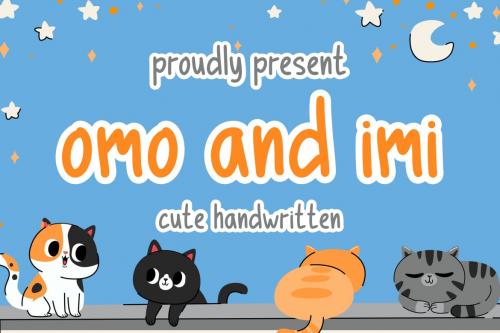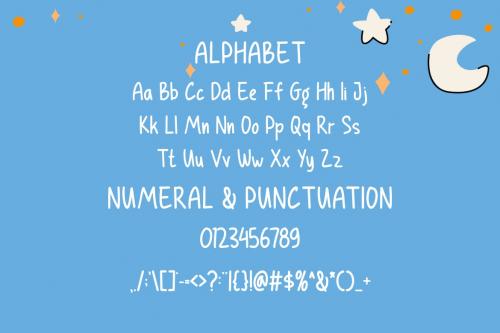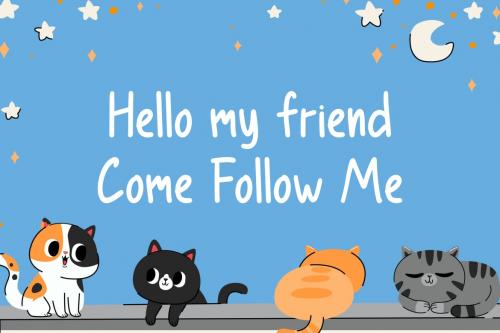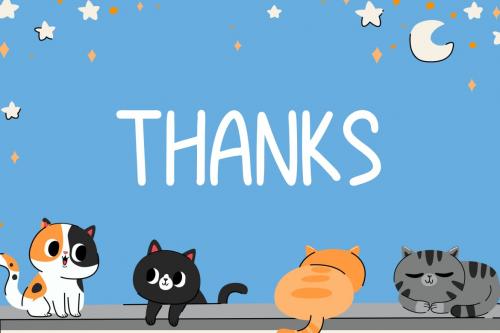
Omo And Imi - Cute font
**Omo And Imi ** Cute & Simple font that fits perfectly in to anything. Its casual charm makes it look very down to earth, easy to read and, in the end, very versatile. Omo And Imi will look amazing in any context, whether used in a busy background or as a standalone headline!